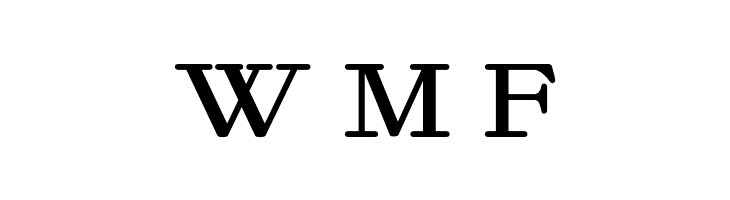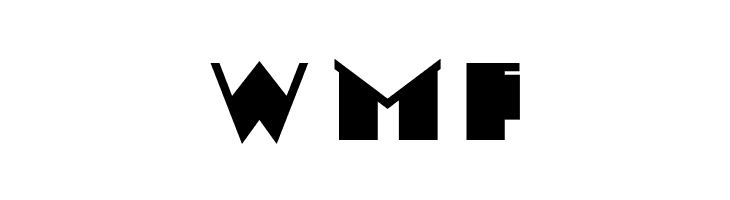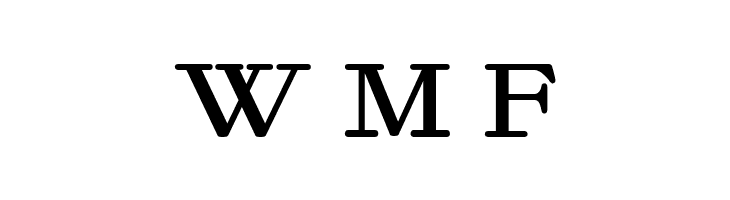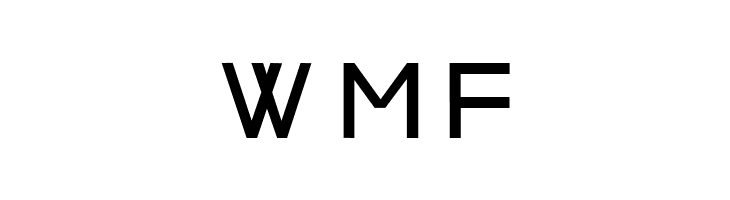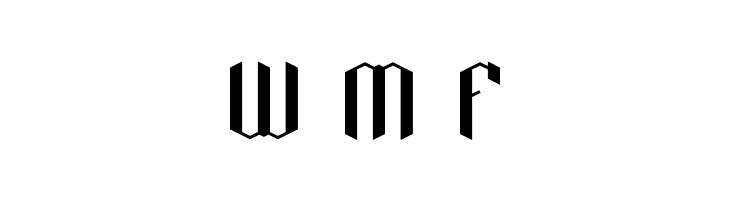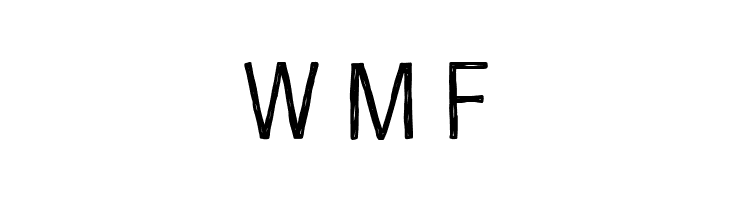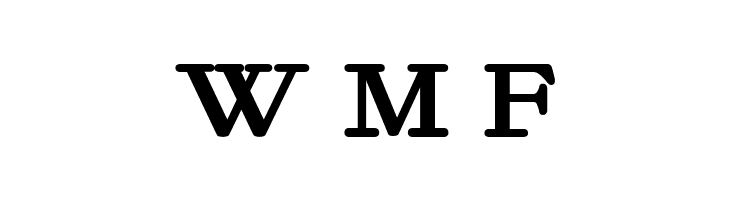
• Kelmscott Roman NF
A vintage serif font with bold, sharp serifs and elegant curves.
• Kelmscott Roman NF Bold
A bold, classic serif font with strong strokes and elegant serifs.
• KelmscottRomanNF
A classic serif font with elegant, well-defined characters and moderate contrast.
• KelmscottRomanNF-Bold
A bold, classic serif font with strong, authoritative characters.
• Kelpotico Light
A playful, hand-drawn font with bold, irregular strokes and a casual feel.
• Kerfuffle NF
A bold, geometric font with sharp angles and a modern aesthetic.
• KerfuffleNF
A bold, geometric font with sharp angles and a striking appearance.
• kermesse
A bold, geometric font with a futuristic and digital aesthetic.
• Key Ridge alt BRK